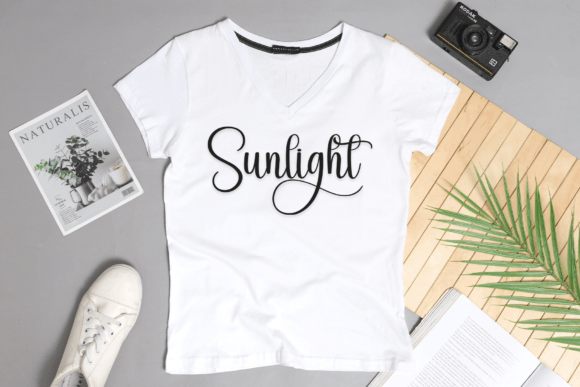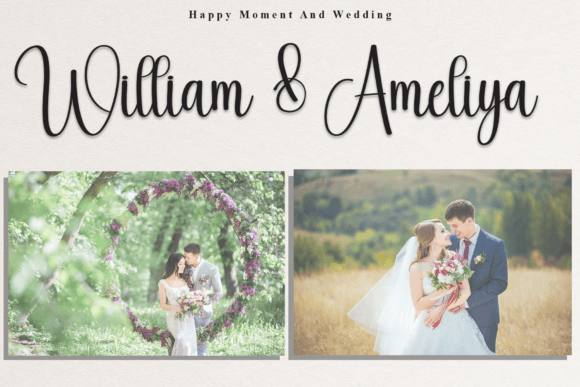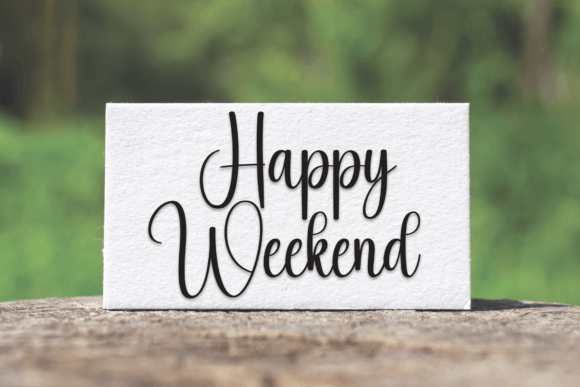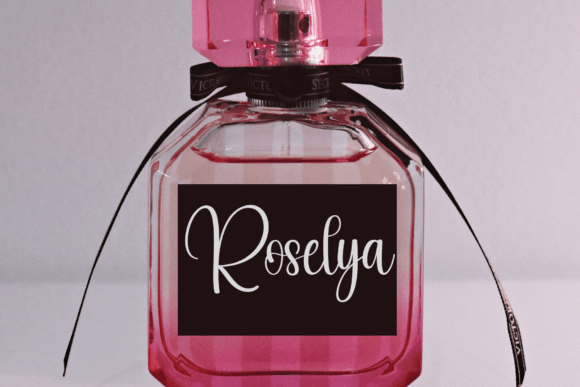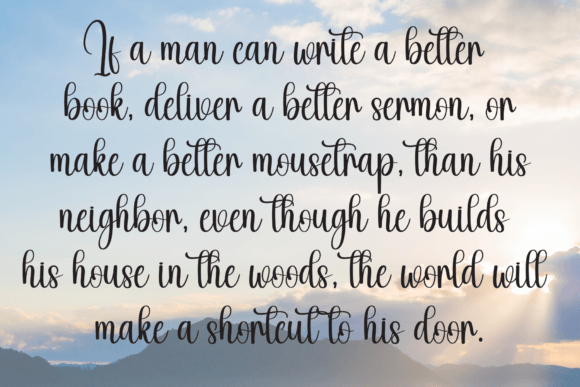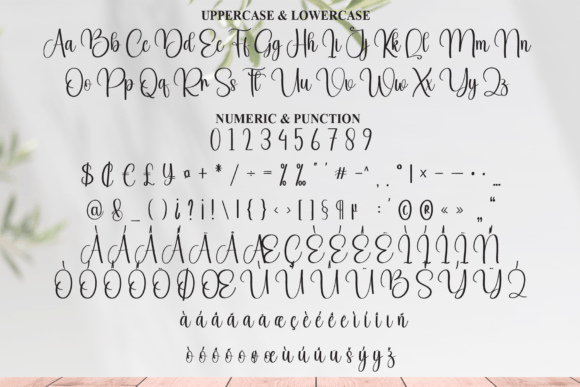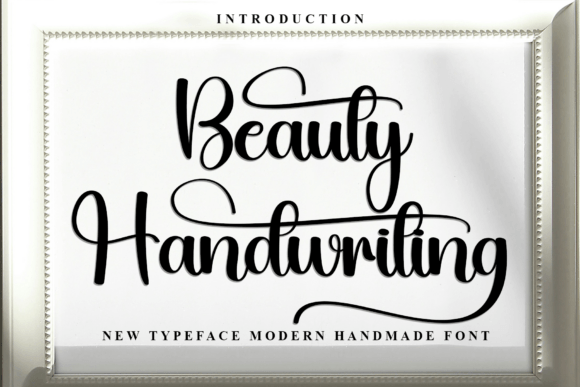
The Art of Elegant Typography
Do you remember the first time you fell in love with the written word? Maybe it was a beautiful hand-written love letter, a stunning wedding invitation, or a classic novel with perfectly crafted script. Whatever the moment, it’s likely that the calligraphy font played a significant role in capturing your heart. There’s something about the flowing lines, the elegant curves, and the artistic flair that makes us go weak in the knees.
That’s where Calligraphy Font comes in – a classy, handwritten font that adds a touch of sophistication to any text. Its purpose is simple: to make your words look refined, beautiful, and artistic. Whether you’re a seasoned designer or just starting out, Calligraphy Font is an essential tool in your creative arsenal. Its value lies in its ability to elevate your designs, making them stand out from the crowd and leave a lasting impression.
Key Features of Calligraphy Font
- Unique Characteristics: Distinctive calligraphy style with elegant flourishes and swashes, perfect for creating visually stunning headings and titles.
Review of Calligraphy Font
I recently had the chance to work with the Calligraphy Font, and I must say it’s a beautiful addition to any design project. ✨ Here are some of its strengths:
- Highly customizable: The font can be easily adjusted to fit any style or tone, making it versatile for a wide range of projects.
- Legibility: Despite its ornate design, the font is surprisingly easy to read, even at smaller font sizes.
- Aesthetic appeal: The intricate details and flourishes of the font add a touch of elegance and sophistication to any design.
However, as with any font, there are some limitations to consider: ⚠️
- May not be suitable for small text: The font’s intricate design can make it difficult to read at very small font sizes.
- Can be overwhelming: The ornate details of the font can be overwhelming if used excessively, so be sure to use it sparingly.
- Not ideal for digital use: The font’s design may not be optimized for digital use, which can lead to pixelation and other issues.
Overall, I’m impressed with the Calligraphy Font’s unique style and versatility. While it may have some limitations, it’s a great choice for designers looking to add a touch of elegance and sophistication to their projects.
Tips for Getting the Most Out of Calligraphy Font
1. Experiment with different font sizes and styles to create visual interest.
2. Combine calligraphy font with other decorative fonts for a unique look.
3. Use calligraphy font to create attention-grabbing headlines or titles.
Great Vibes is a beautiful and elegant script font that’s perfect for use in high-end branding materials, such as logos, business cards, and letterheads. It’s also suitable for use in wedding invitations, announcements, and other formal documents. Compared to Calligraphy Font, Great Vibes has a more refined and sophisticated feel, making it ideal for projects that require a touch of luxury and elegance.
Q: Can I use a calligraphy font for body text?
While calligraphy fonts can be beautiful and eye-catching, they are not always suitable for body text. Calligraphy fonts are often designed for short passages of text, such as headings, titles, or captions. Using a calligraphy font for large blocks of text can be difficult to read, especially in smaller font sizes. It’s best to reserve calligraphy fonts for decorative purposes and use a clear, readable font for body text.